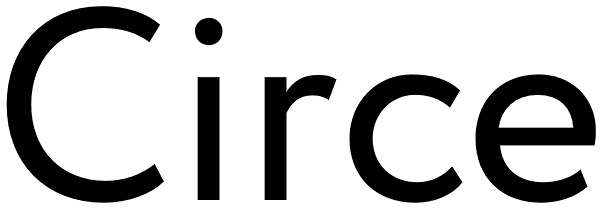
Circe
Circe is a geometric sans-serif with some humanist features in 6 weights from Thin to Extra Bold. The name of the font derives from both its geometric shapes and artificial, kinky nature. While being clean and simple in its basic form, Circe can...